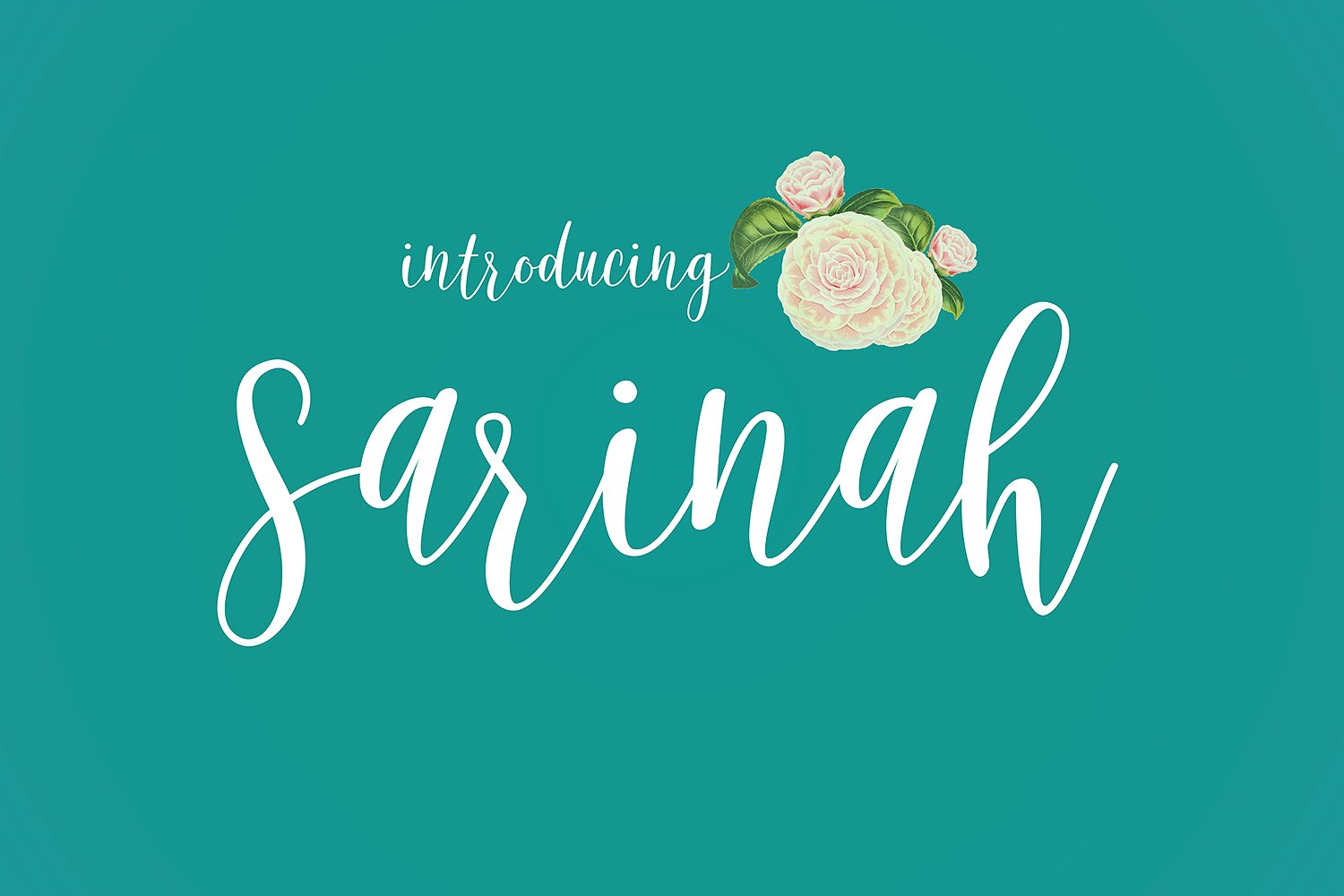
Sarinah Script
Sarinah Script Font
Hi … Introducing the latest styles Script Font Sarinah with the kind of modern hand scratches, I hope you are interested in this font, if you want to use for your work this font can be used easily and simply because there are a lot of features in it to contain a complete set of letters lower and uppercase letters, assorted punctuation, numbers, and multilingual support. font also contains several ligatures and alternate style Stylistic Sets for those of you who have software that is able to work OpenType (Photoshop / Illustrator / InDesign).
Sarinah Script